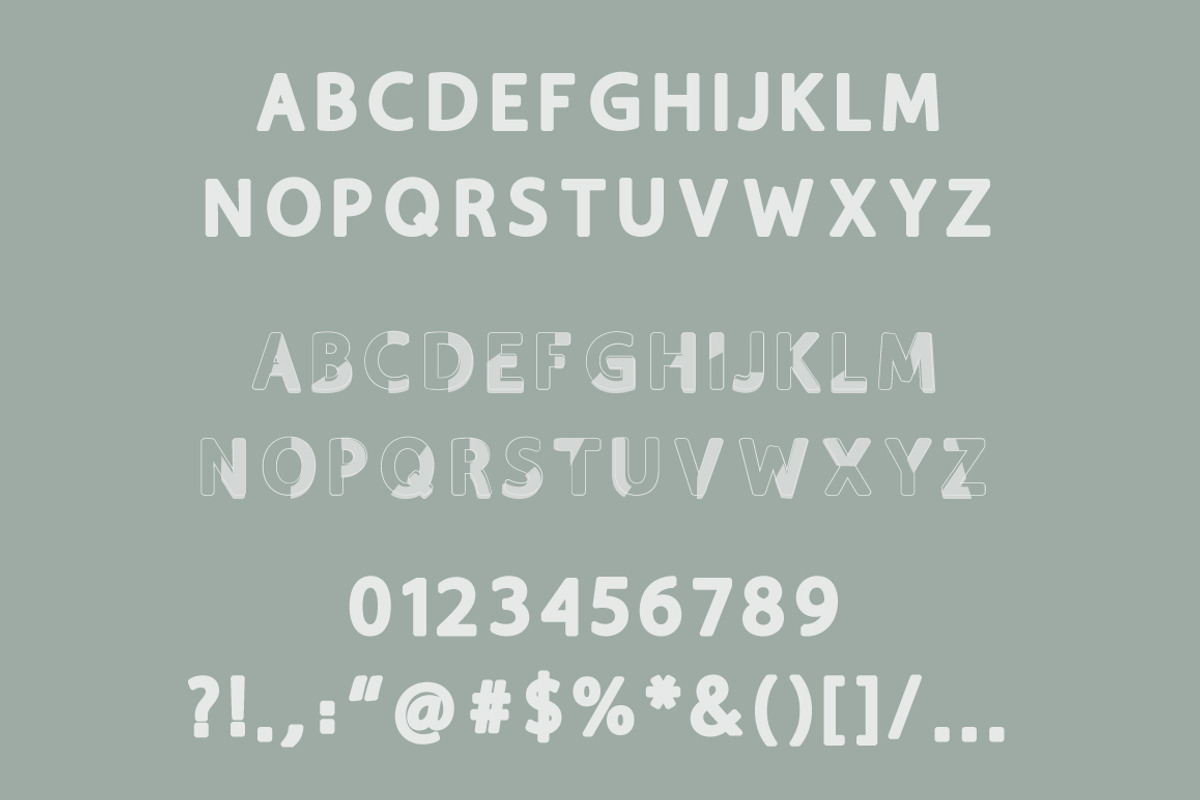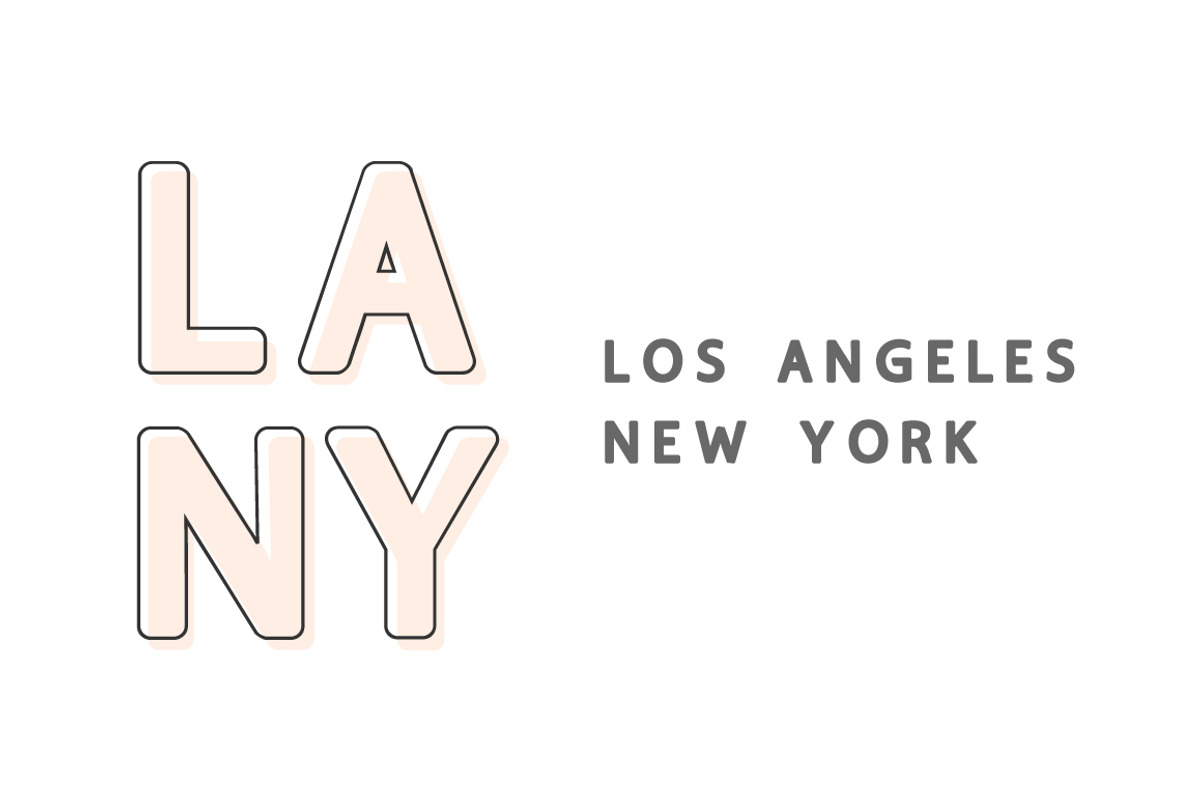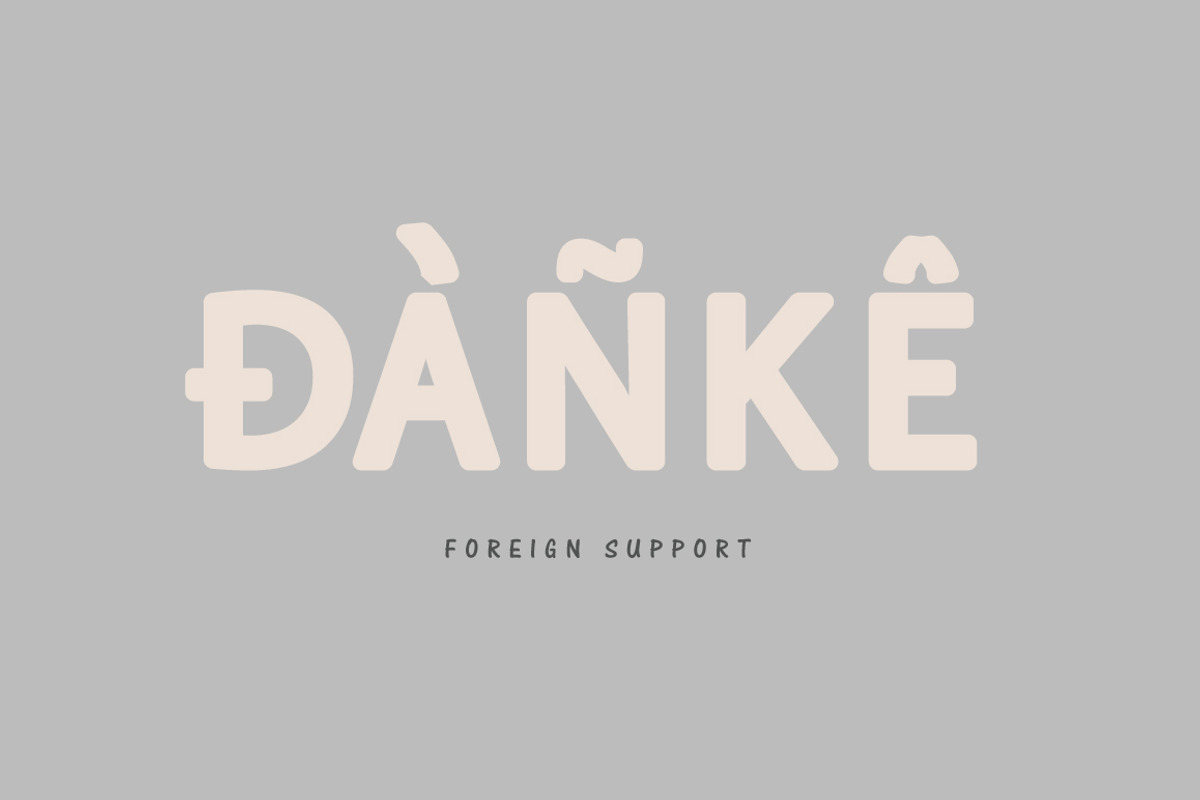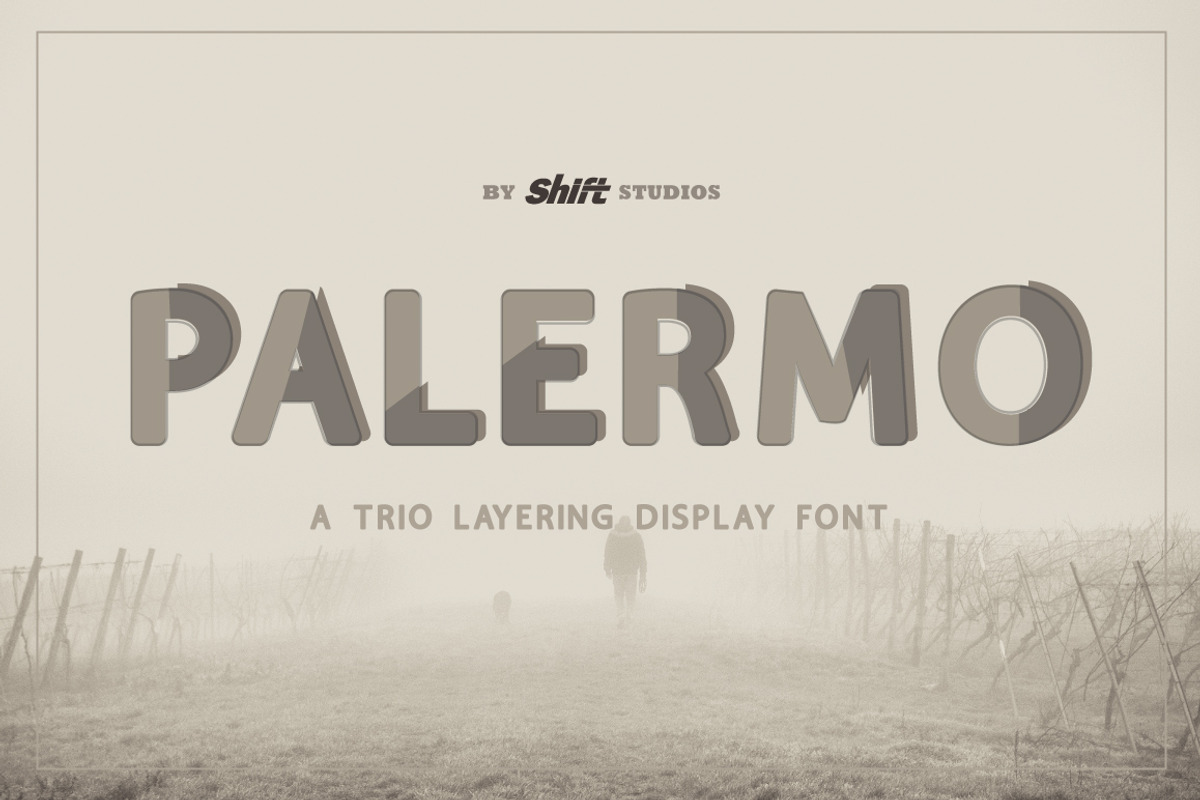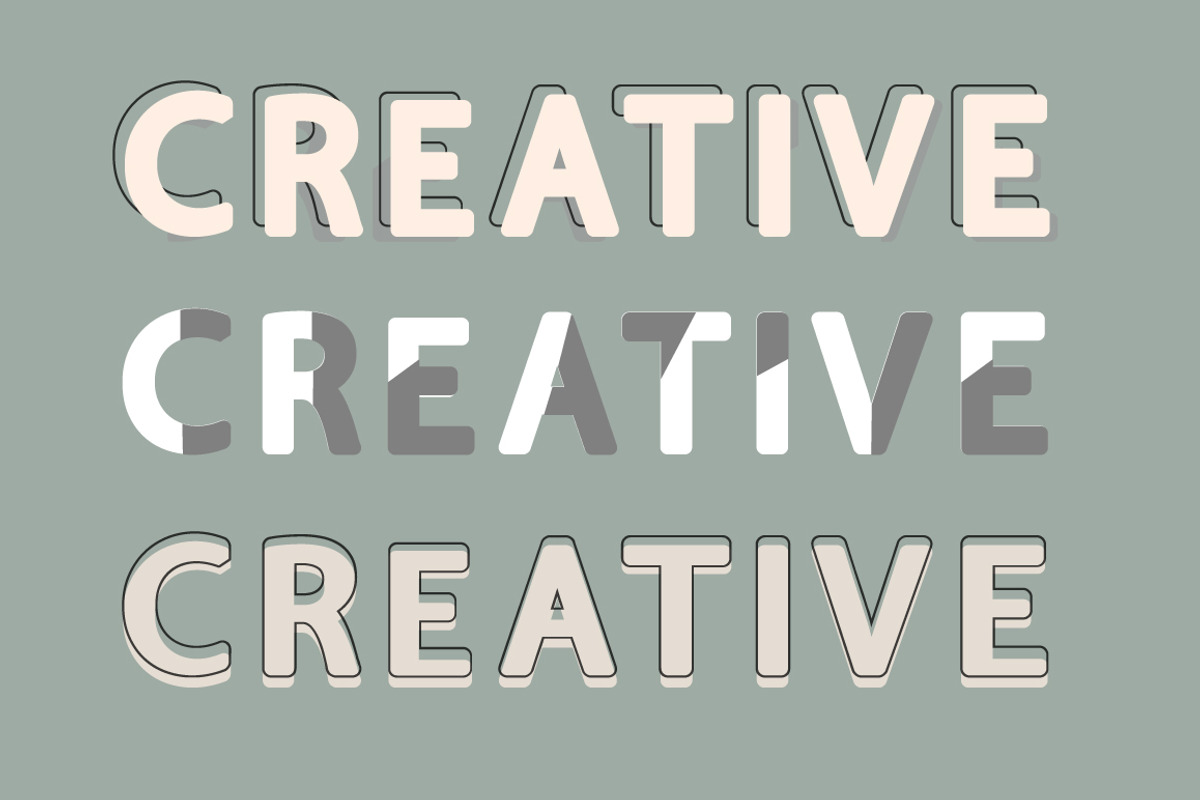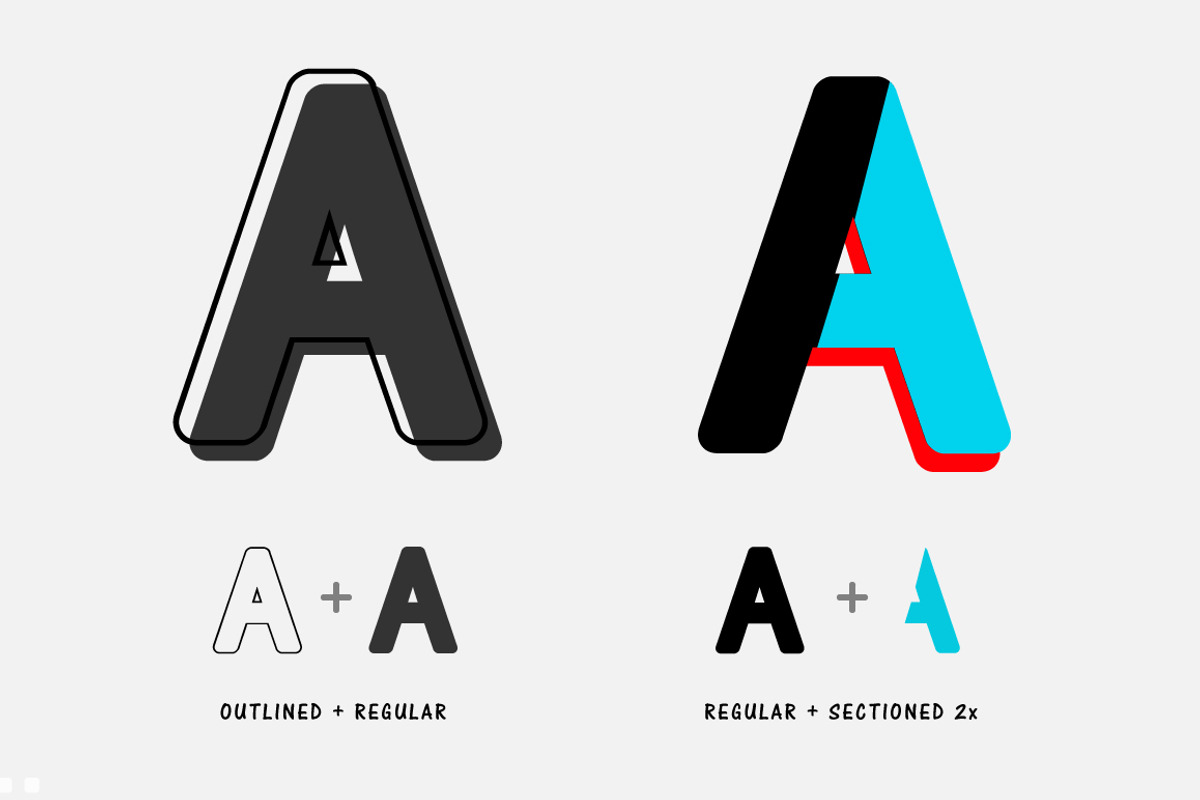
Palermo Typeface
Palermo is a rounded bold display font trio with regular, outlined and sectioned. This all caps font specifically developed for contemporary design styles and layered font design, making it really simple to layer these fonts together perfectly. These styles have been carefully designed to layer on top of each other, in order to creating an alternate style as you wish.
Perfect for displays, headers, invitations, blogs, poster and so much more, Palermo will become a playful staple in your font collection!